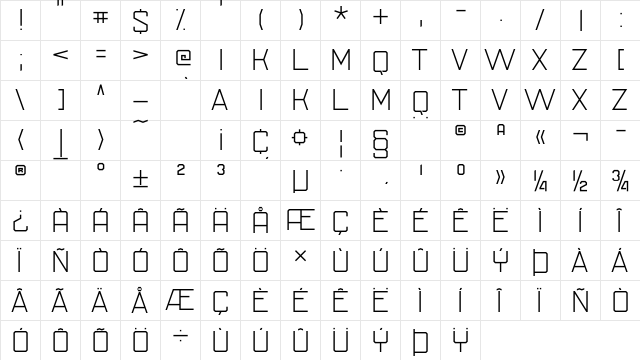
SU-30SM 330
| Foundry | Adam Rucki |
| Designer | Adam Rucki |
Design Context for SU-30SM Typeface
SU-30SM takes a measured approach to typography — its balanced proportions and neutral character make it a reliable workhorse for both digital and print work.